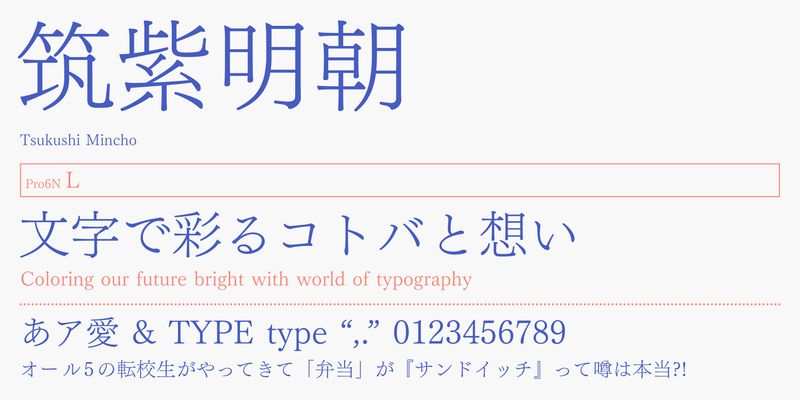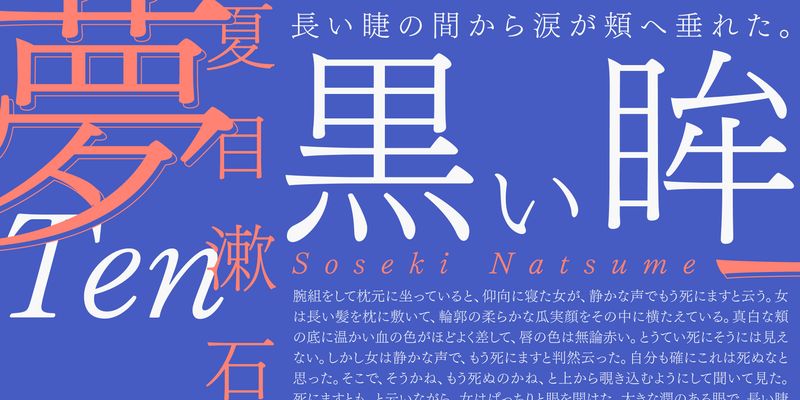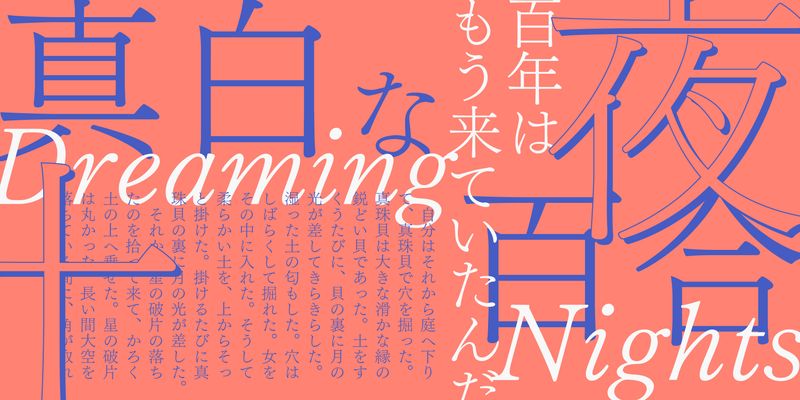
This professional quality Mincho-style typeface is suitable for long texts. It was designed with deep consideration of what a Mincho style typeface design should be, and is based on the essence of traditional type designs from the eras of hot metal type and phototypesetting. Even when used in offset printing, you will get a unique visual effect similar to the ink-bleeding of letterpress printing. Unlike Mincho-style typefaces that have kanji and kana glyphs with larger counter spaces, This typeface retains the strength and weakness of the spaces inherent in each letter and flexibility of the strokes. With these characteristics, text set in this typeface will be readable with a comfortable visual rhythm.